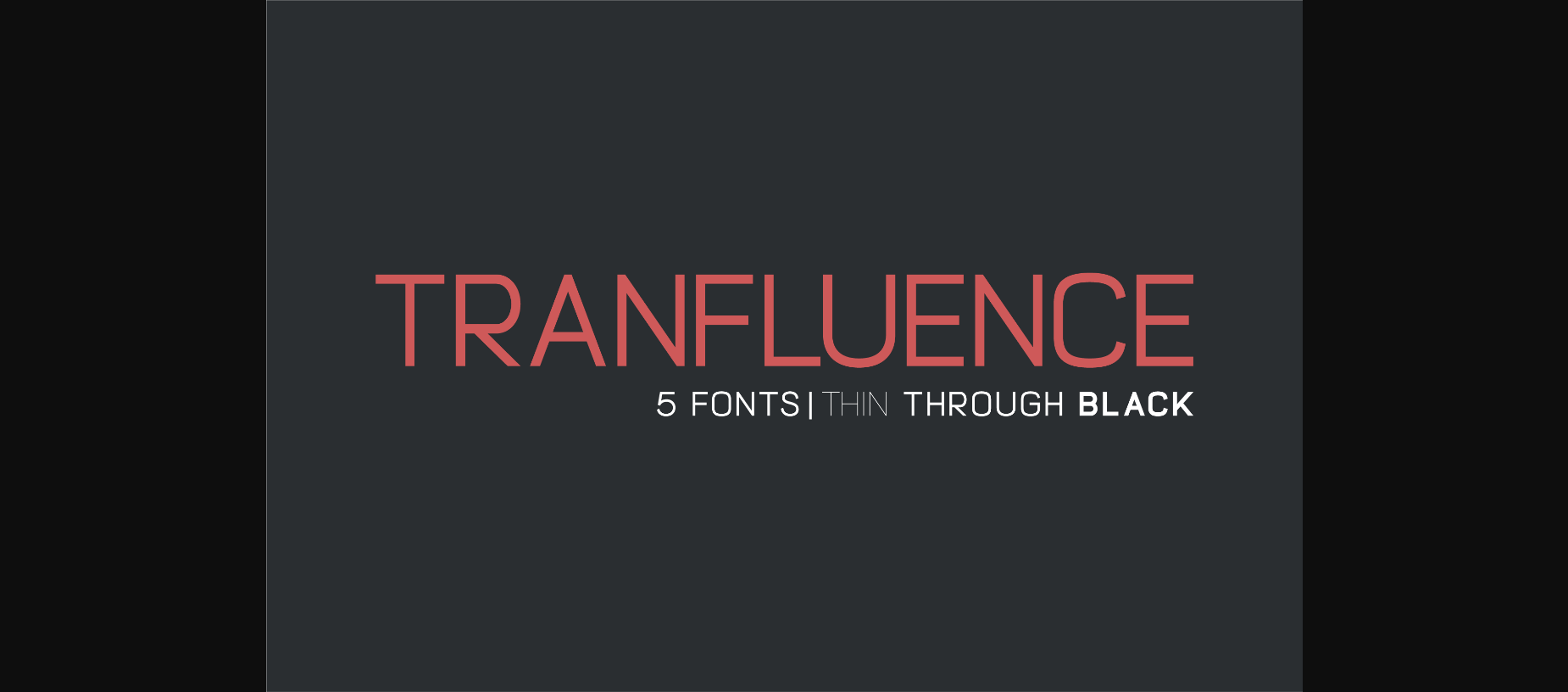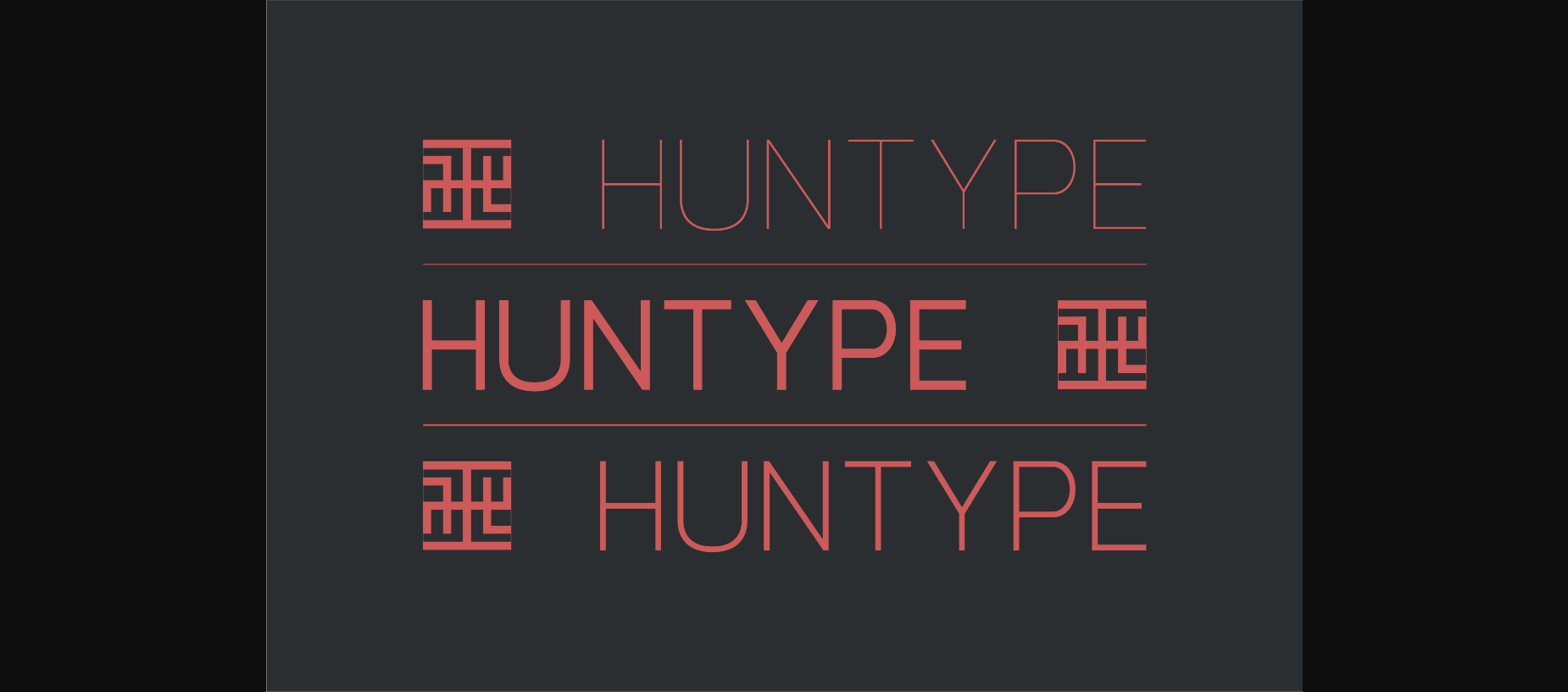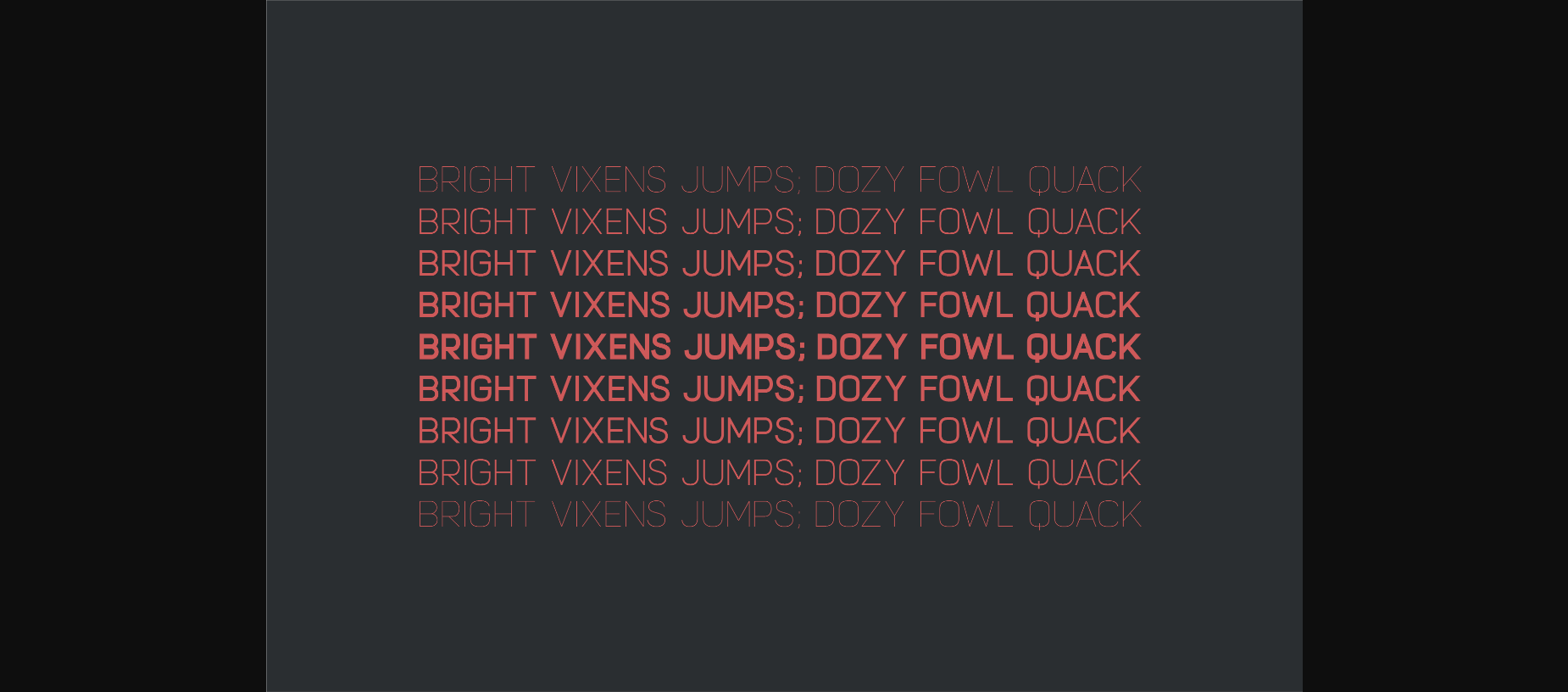
About Tranfluence Font
Introducing Tranfluence Family: Redefine your design projects with a touch of modern elegance. With five weights from Thin to Black, Tranfluence Family offers versatility for various needs. Its contemporary style is perfect for branding, headlines, and more, ensuring readability without compromising on sophistication. Elevate your designs today with Tranfluence Family meticulously crafted aesthetics.